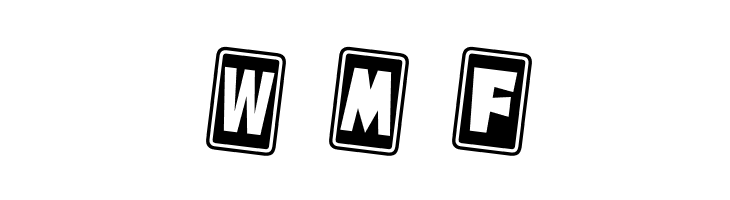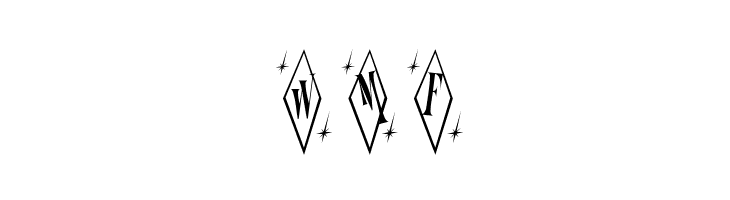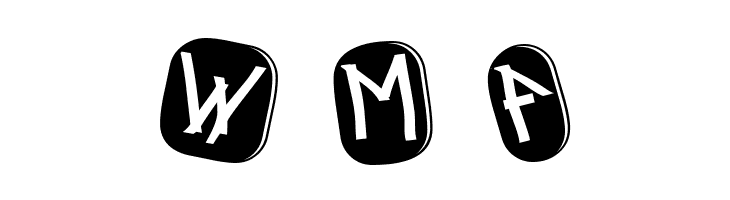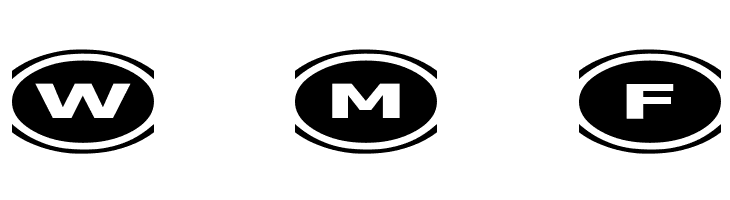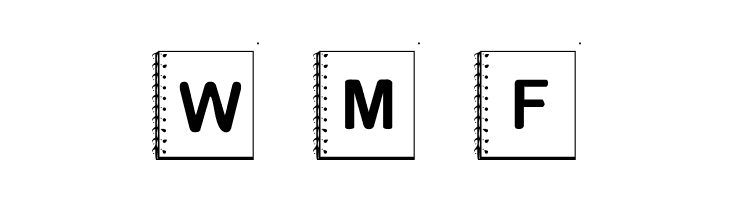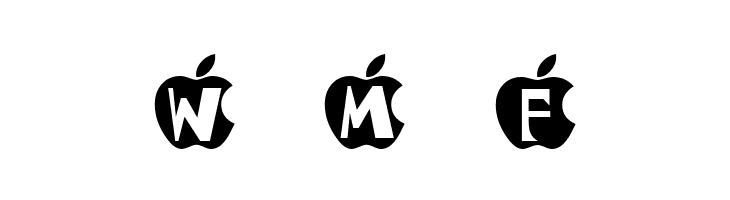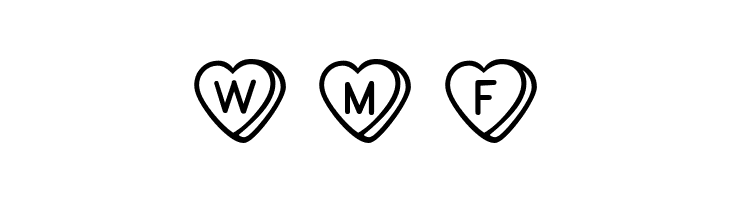
A bold, decorative font with rune-like characters enclosed in rounded shapes.
A playful, bold font with rounded, bubble-like characters enclosed in shapes.
A bold, decorative font with characters enclosed in circles and teardrop accents.
A playful font with characters enclosed in jigsaw puzzle pieces, offering a bold and unique style.
A bold, chain-themed font with sans-serif characters enclosed in linked shapes.
A bold, circular-enclosed font with high contrast and a modern, decorative style.
A futuristic, geometric font with bold, block-like characters enclosed in rectangles.
A bold, decorative font with characters enclosed in circular badges, reminiscent of vintage typewriter keys.
A bold, circular-enclosed font ideal for impactful designs.
A decorative font with characters enclosed in heart shapes, perfect for romantic or playful designs.
A geometric and abstract font with uniform symbols enclosed in squares.